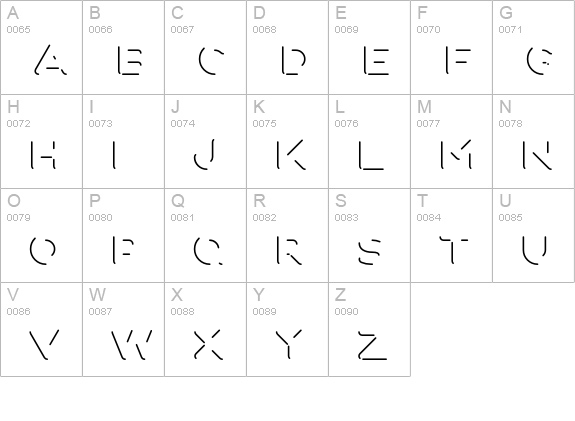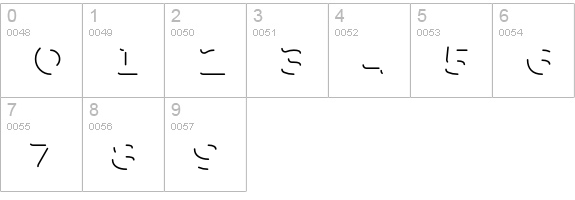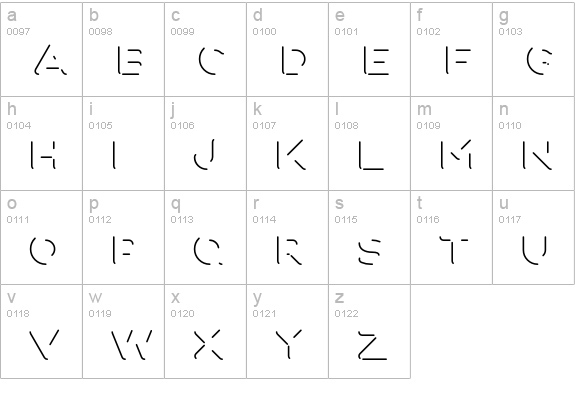
Fun City Level 4 Reflection Font Details
Fun City Level 4 Reflection font is a playful and dynamic typeface that will add a touch of fun and excitement to your design projects. With its unique reflection effect, this font is perfect for creating eye-catching headlines, posters, and social media graphics. This font is freely available to download at FontsMarket.com, making it accessible to designers and creatives looking to inject a sense of joy and creativity into their work. Whether you're working on a party invitation, a children's book cover, or a fun branding project, Fun City Level 4 Reflection font is sure to bring a smile to your audience's face. Embrace the playful vibes of this font and let your imagination run wild as you explore the endless design possibilities it offers. Make your projects stand out with the lively and dynamic appeal of Fun City Level 4 Reflection font, available for free download at FontsMarket.com.